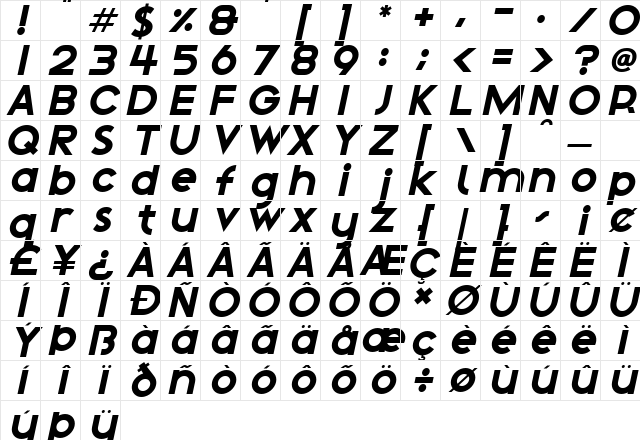
Complete Magical Childhood Italic glyph index. Displaying only characters natively supported by Magical Childhood Italic font.
Magical Childhood has an approachable, lighthearted character - its loose, expressive forms are well-suited to children's content, casual branding, and fun-first design. The slanted form adds forward momentum and visual energy.
Font Pairing: Pairs well with a rounded or humanist sans for body copy, maintaining the friendly tone without relying on Magical Childhood to carry extended reading.
Pro Tip: Use Magical Childhood at larger display sizes where its expressive character can land. Pair with a clean, simple sans for body copy to maintain readability.